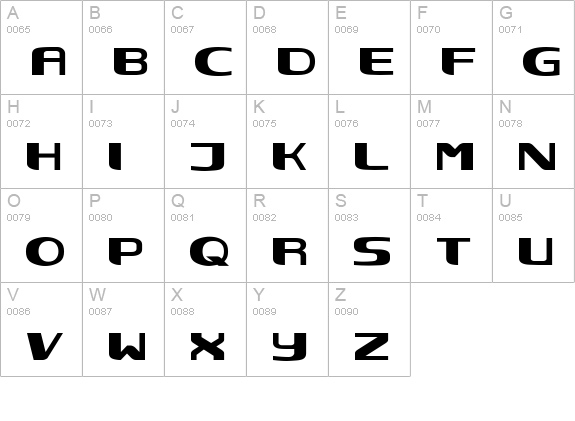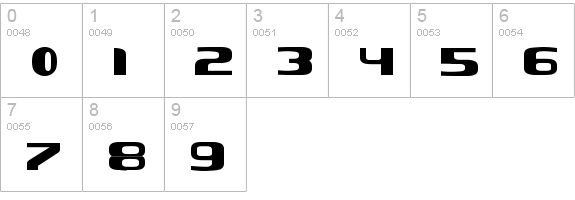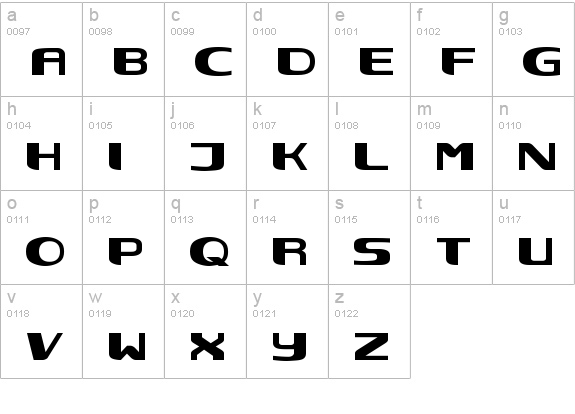
NEC Font Details
The NEC font is a sleek and modern typeface that exudes sophistication and elegance. With its clean lines and sharp edges, this font is perfect for a wide range of design projects, from branding to editorial design. The NEC font is versatile and can be used in both digital and print applications, making it a go-to choice for designers looking for a contemporary and professional look. What sets the NEC font apart is that it is available for free download at FontsMarket.com. This means that you can easily access this high-quality font without any cost, allowing you to elevate your designs without breaking the bank. The NEC font's free availability makes it a valuable resource for designers seeking to add a touch of style and refinement to their work. Download the NEC font today and see the difference it can make in your projects.